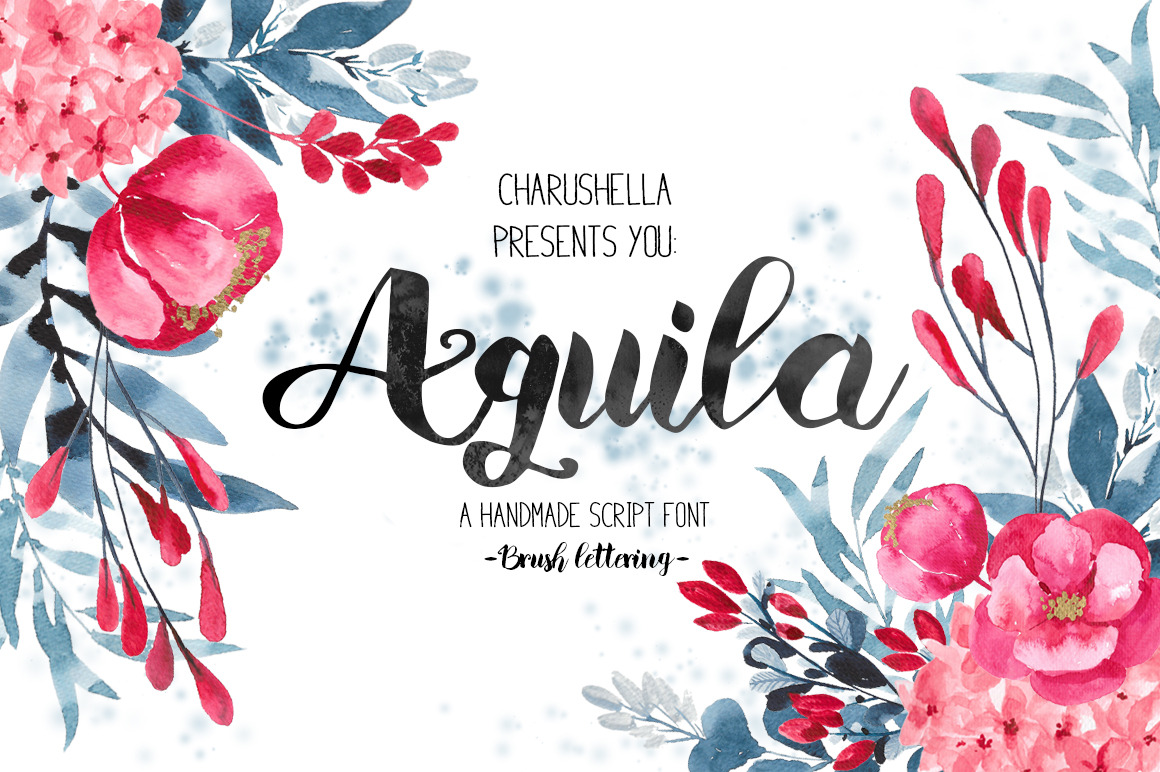
Aquila -Script font
I present you my very first font: Aquila. I hope you will enjoy it as much as i do.
Aquila is a lovely brush letter font that will give your projects a really warm, quite romantic, touch. It's great for cards, wedding invitations, prints, posters, t-shirts, branding etc.